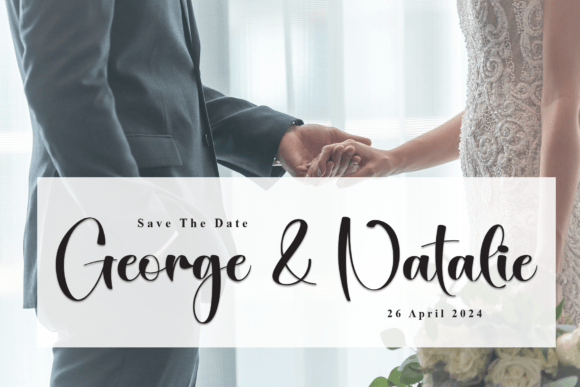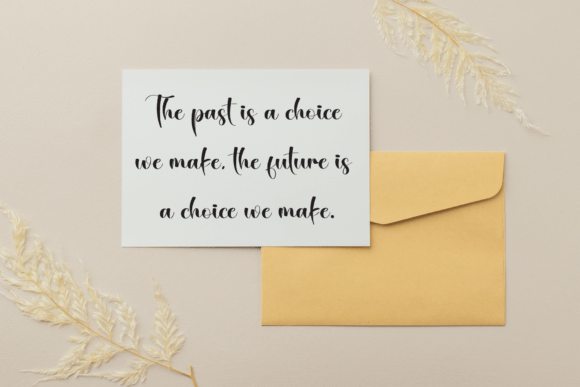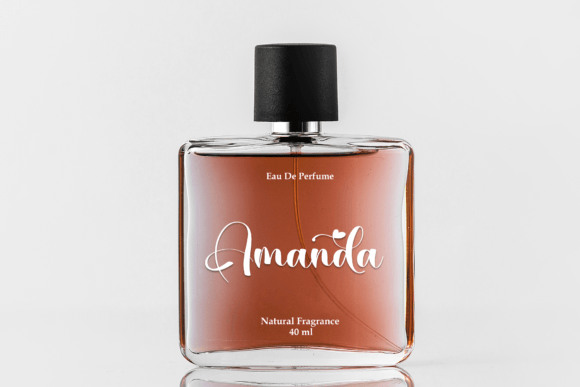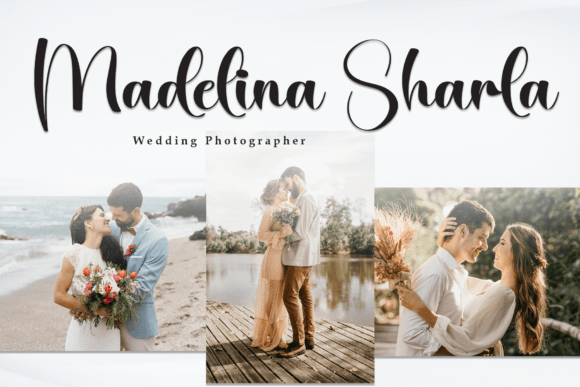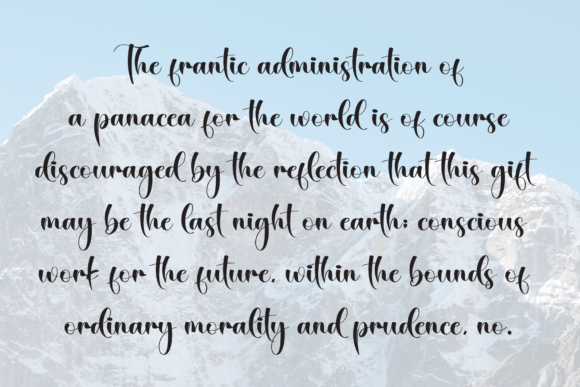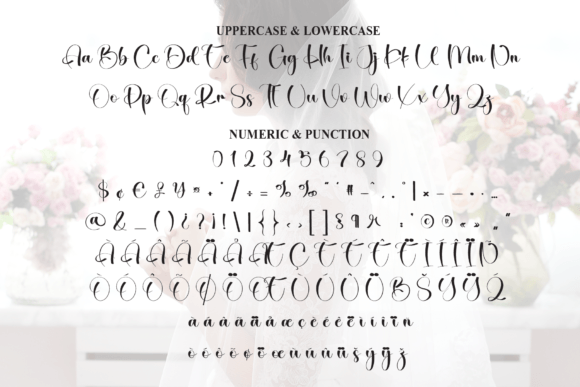
The Timeless Charm of Bride Font
Have you ever found yourself lost in a sea of fonts, desperately searching for the perfect one to convey your love and gratitude on a special occasion? That’s exactly what happened to me when I was planning my sister’s wedding. I spent hours browsing through font styles, but none seemed to capture the essence of the moment until I stumbled upon Bride Font. Its elegant and charming feel instantly made me envision the perfect wedding invitation.
Bride Font is a beautiful script font that exudes romance and sophistication. It’s perfect for wedding invitations, thank you cards, quotes, and any other design that requires a handwritten touch. As a designer, I can attest to the value of having a versatile font like Bride Font in your arsenal. It’s a game-changer for creating unique and memorable designs that leave a lasting impression.
Bride Font Key Features
- Font Family: Bride is a script font designed by Elena Genova, featuring elegant, cursive lines and flourishes.
- Unique Characteristics: Bride Font features intricate details, swashes, and ornaments, adding a touch of elegance and sophistication to designs.
- Language Support: Bride Font supports a wide range of languages, including Latin, Cyrillic, and Greek alphabets, making it a versatile choice for global designs.
Bride Font Review
I recently had the chance to work with the Bride font, and I have to say, it was a mixed bag for me. On the one hand, I think it has some lovely qualities that make it a great choice for certain projects. ✨
- First, the font is incredibly elegant and refined, making it perfect for wedding invitations, formal announcements, or any other project that requires a touch of sophistication.
- Another thing I like about Bride is its versatility – it comes in a range of weights and styles, making it easy to use in different contexts.
- The font also has a strong, classic feel that will stand the test of time.
However, I do have some reservations about the font’s limitations. ⚠️
- One thing that didn’t sit well with me is the font’s lack of expressiveness – it’s a very formal, traditional font, and it doesn’t lend itself well to more playful or creative projects.
- Additionally, the font may not be the best choice for digital applications, as it can be a bit too ornate and difficult to read at smaller sizes.
Overall, I think the Bride font is a solid choice for the right projects, but it may not be the best fit for everyone. If you’re looking for a classic, elegant font that exudes refinement and sophistication, then Bride might be a great choice. But if you’re looking for something more playful or modern, you might want to look elsewhere.
Use Bride Font for wedding-related designs such as invitations, stationery, and thank-you cards.
Combine Bride Font with other elegant fonts to create a sophisticated look.
Experiment with different font sizes, colors, and styles to create a unique design.
Bride Font is perfect for:
Wedding invitations
Wedding stationery
Thank-you cards
Wedding website design